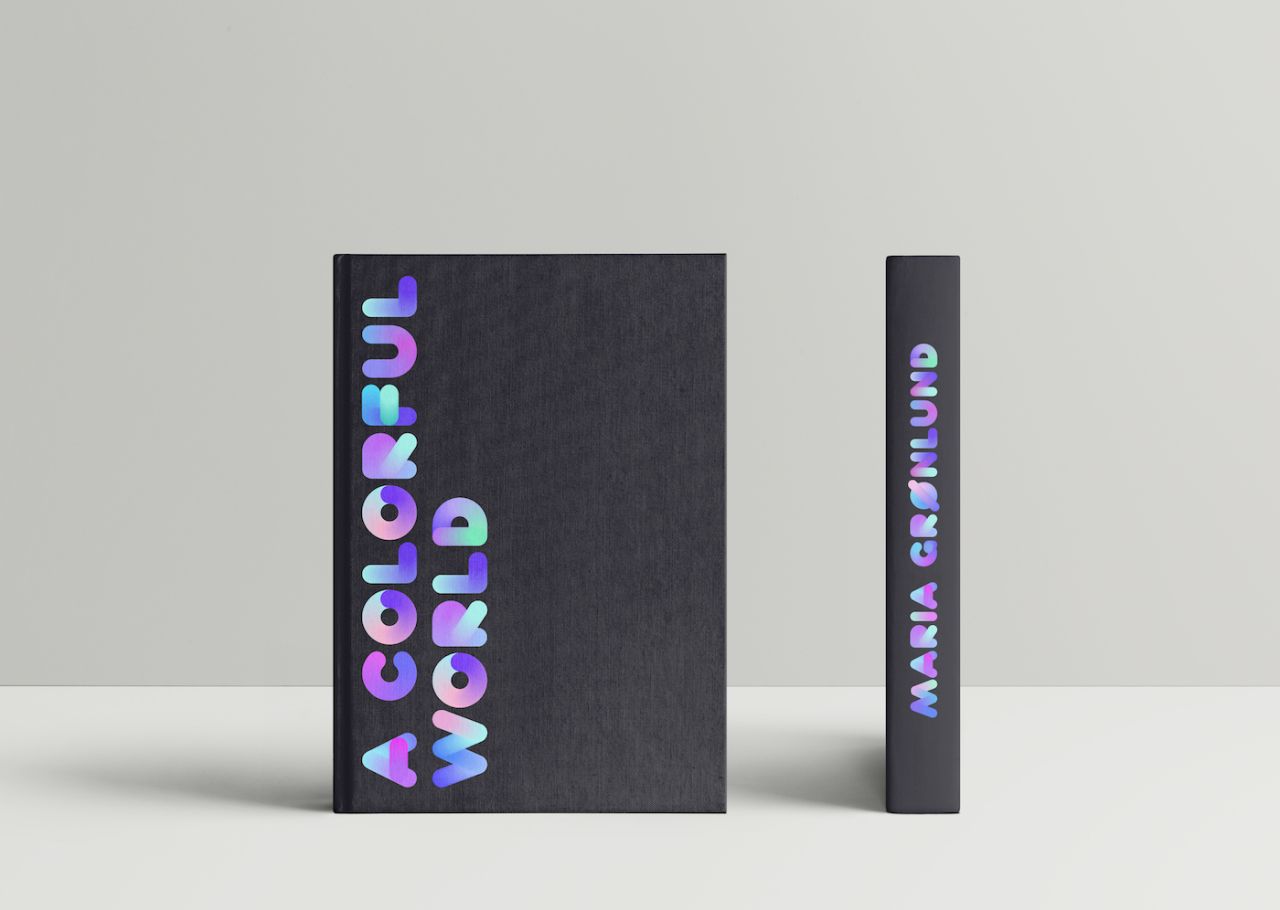
Colour font creation now made easier than ever before by Fontself Maker
Just because there's a wealth of fonts available online, it doesn't mean the right one for your project is out there. Perhaps you're looking for a combination of two styles, that hasn't been made yet. So, what do you do? Compromise?
Hell no. You find a way to make what you want. Fontself Maker is described as the go-to solution for "thousands of professional creatives, graphic designers and illustrators who ever dreamed to easily produce custom fonts right from Illustrator or Photoshop."
With the launch of the new software, brand new typefaces can be created in minutes, comprising vector fonts that contain the colours and shades of their original lettering.
“It’s a real game-changer”, says Justin Au, an art director at Ogilvy & Mather, New York. “Fontself Maker is a tool that allows designers to turn any vector artwork into a typeface. And this includes colour, gradients, and all other kinds of fun”. In early 2017, the leading ad agency partnered with Fontself to bring life to the Gilbert colour font – a Cannes Lions 2017 Silver Award and a colourful tribute to Gilbert Baker, creator of the iconic Rainbow Flag.
Adobe showcased the Fontself-powered Gilbert colour font during its MAX 2017 conference keynote to announce the support of the OpenType-SVG colour font format in Illustrator CC 2018, following up on last year’s support in Photoshop CC 2017, highlighting the importance of colour fonts for the future of the graphics industry.
As the Fontself Maker user community keeps growing (it started gathering during a successful Kickstarter campaign in 2015), it is now about to produce a whole new generation of typefaces, chromatic fonts and colour fonts, leading to a typographic renaissance that will benefit to the whole design community. Find out more at www.fontself.com.